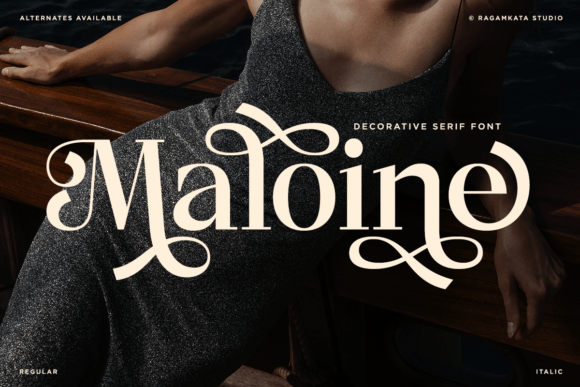
Maloine: A Refined Display Serif for Thoughtful Branding
It was 10:47 a.m., coffee still warm, and I’d just opened a fresh brand board for a local ceramicist’s studio refresh—hand-thrown mugs, minimalist glazes, quiet confidence. I typed her name in three fonts: a sturdy sans, a delicate script, then Maloine. Instantly, the page settled. Not louder—but *clearer*. Like the right coat on a well-cut suit. That’s how Maloine landed for me: not as a flashy novelty, but as a quietly capable display serif that earns its place.
What Maloine Actually Feels Like in Real Work
Maloine is a timeless display serif—no exaggeration. It doesn’t shout “vintage” or “modern.” It lives comfortably in the space between: smooth curves that recall early 20th-century letterpress craftsmanship, balanced proportions that feel intentional (not fussy), and subtle, graceful terminals that soften without sacrificing structure. The lowercase a, e, and s have gentle open apertures; capitals carry restrained flair—especially the Q and R, which add presence without drama. It’s refined, yes—but never cold. There’s warmth in its rhythm, like handwriting that’s been carefully practiced until it becomes effortless.
Where It Shines (and Where It Steps Back)
I tested Maloine across six touchpoints: logo lockup, brand board headers, matte-finish product labels (for small-batch tea tins), Instagram story banners, a responsive website hero section, and letterpress-style business cards. In every case, it performed with quiet authority—as a display font first and foremost.
- Logo design: Excellent for short names or monograms. Its character weight holds up beautifully at 36–60pt, even reversed out of dark backgrounds. Avoid stretching it thin—it’s not built for ultra-narrow spacing or tight kerning at scale.
- Packaging & labels: On matte kraft paper, Maloine’s soft curves read as tactile and human—not sterile. Just don’t set ingredient lists or legal text in it. It’s not a text serif.
- Web & social graphics: Works cleanly on screen at 28–48px. At smaller sizes (under 20px), legibility dips—especially in body copy or caption-heavy layouts. Stick to headlines, quotes, and feature titles.
- Printed collateral: Gorgeous on uncoated stock. The contrast between ink spread and its open counters stays legible and elegant—even on 12pt business card headers.
It’s not for dense editorial spreads, long-form web articles, or corporate annual reports demanding neutrality. Maloine has personality—and that’s its strength, not a flaw. Use it where you want tone, intention, and craft to register before the words do.
Pairing It Without Overthinking
Maloine pairs intuitively—not because it’s neutral, but because its voice is so clearly defined. I landed on two reliable pairings across projects:
- A warm, humanist sans-serif (like Poppins, Lato, or newer options like Manrope) for body text, navigation, and functional labels. The contrast feels grounded—not jarring. Sans handles utility; Maloine handles identity.
- A single restrained script or handwritten accent (think a modest flourished ampersand or signature line) for very limited decorative use—say, on a thank-you tag or envelope liner. Less than 5% of your system. Maloine doesn’t need competition; it needs thoughtful framing.
Avoid pairing it with other high-contrast serifs or geometric sans fonts—they’ll either clash tonally or flatten Maloine’s nuance. And skip stacking multiple display fonts. Let Maloine lead, then step back.
Practical Notes Before You Commit
Maloine ships with a standard set: Regular, Italic, and one bold weight—no light or extra-bold variants. No stylistic alternates, swashes, or discretionary ligatures. That’s fine—it’s designed as a focused tool, not a sprawling system. If your project needs multilingual support beyond Western Latin (e.g., extended diacritics or Cyrillic), double-check the character set before licensing. It covers basic European languages well, but isn’t built for broad global typography systems.
A Quiet Font That Earns Attention
What sticks with me about Maloine isn’t how it looks in isolation—it’s how it behaves in context. On a café’s chalkboard menu mockup, it gave warmth without cliché. On a handmade soap label, it elevated simplicity instead of overwhelming it. Even in grayscale PDFs or low-res social previews, its structure held. It doesn’t distract. It doesn’t apologize. It simply says what it is—gracefully, confidently, and with care.
If you’re choosing a serif font for a brand that values craft, calm clarity, and considered detail—Maloine is worth more than a quick preview. Try it on your next logo draft. Set it large. Step away for five minutes. Then come back and ask: does it still feel *right*? More often than not—with Maloine—you’ll already know the answer.